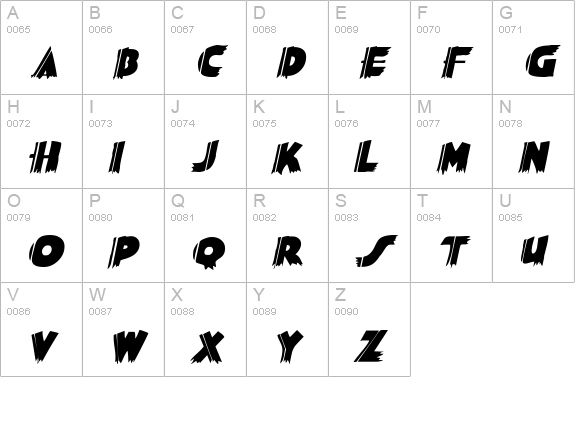
SashDisplayCaps Bold Italic Font Details
SashDisplayCaps Bold Italic is a strong, high-contrast, italic variant in the SashDisplayCaps typeface family \xE2\x80\x94 well suited to headlines, attention-grabbing titles, and strong calls-to-action.
SashDisplayCaps Bold Italic is an exquisite typeface that effortlessly merges elegance with a touch of modernity. Its bold and italicized characters exude confidence and sophistication, making it the perfect choice for projects seeking a unique blend of strength and style. The distinctiveness of SashDisplayCaps Bold Italic lies in its attention to detail, with meticulously crafted letterforms that capture the essence of its design. The bold strokes give it a commanding presence, while the gentle slant of the italics adds a sense of fluidity and grace. Whether used for headlines, logos, or display purposes, SashDisplayCaps Bold Italic instantly captures attention, making a statement that is both bold and refined. Its versatility allows it to seamlessly adapt to a variety of design concepts, from luxurious branding to contemporary editorial layouts. And the best part? SashDisplayCaps Bold Italic is freely available for download at FontsMarket.com. This means that you can easily access this exceptional font, without any cost, and use it to enhance your creative projects. Its availability on FontsMarket.com ensures a hassle-free experience, allowing you to effortlessly incorporate this remarkable typeface into your designs. With SashDisplayCaps Bold Italic, you have the freedom to elevate your designs to new heights. Its captivating presence and freely accessible nature make it a must-have font for designers and creatives alike. So why wait? Download SashDisplayCaps Bold Italic today and unlock the boundless possibilities that this extraordinary typeface offers.